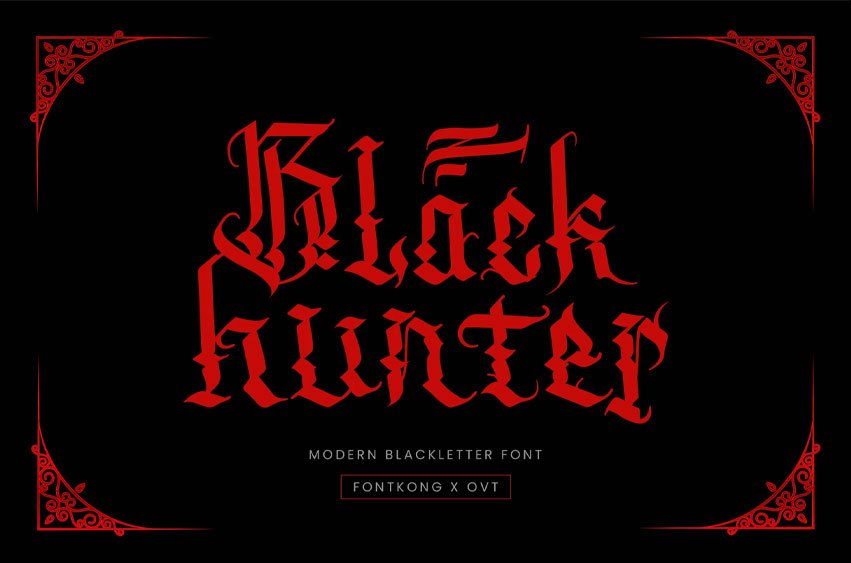
Blackhunter Font is a modern blackletter font that merges bold tradition with a contemporary edge. Perfect for graphic designers, typographers, and creatives looking to make a powerful statement, Blackhunter offers a striking typeface that combines the historical charm of blackletter with modern design elements.
Ideal for posters, logos, apparel, packaging, and branding, Blackhunter’s dramatic and intricate characters provide a strong and captivating aesthetic. Each letter is meticulously crafted to ensure readability and visual impact, making your designs both memorable and impactful.
The “Blackhunter” font includes a complete set of uppercase and lowercase letters, numbers, punctuation marks, and special characters. This versatile set ensures seamless integration into various design projects, from edgy branding to bold editorial layouts.